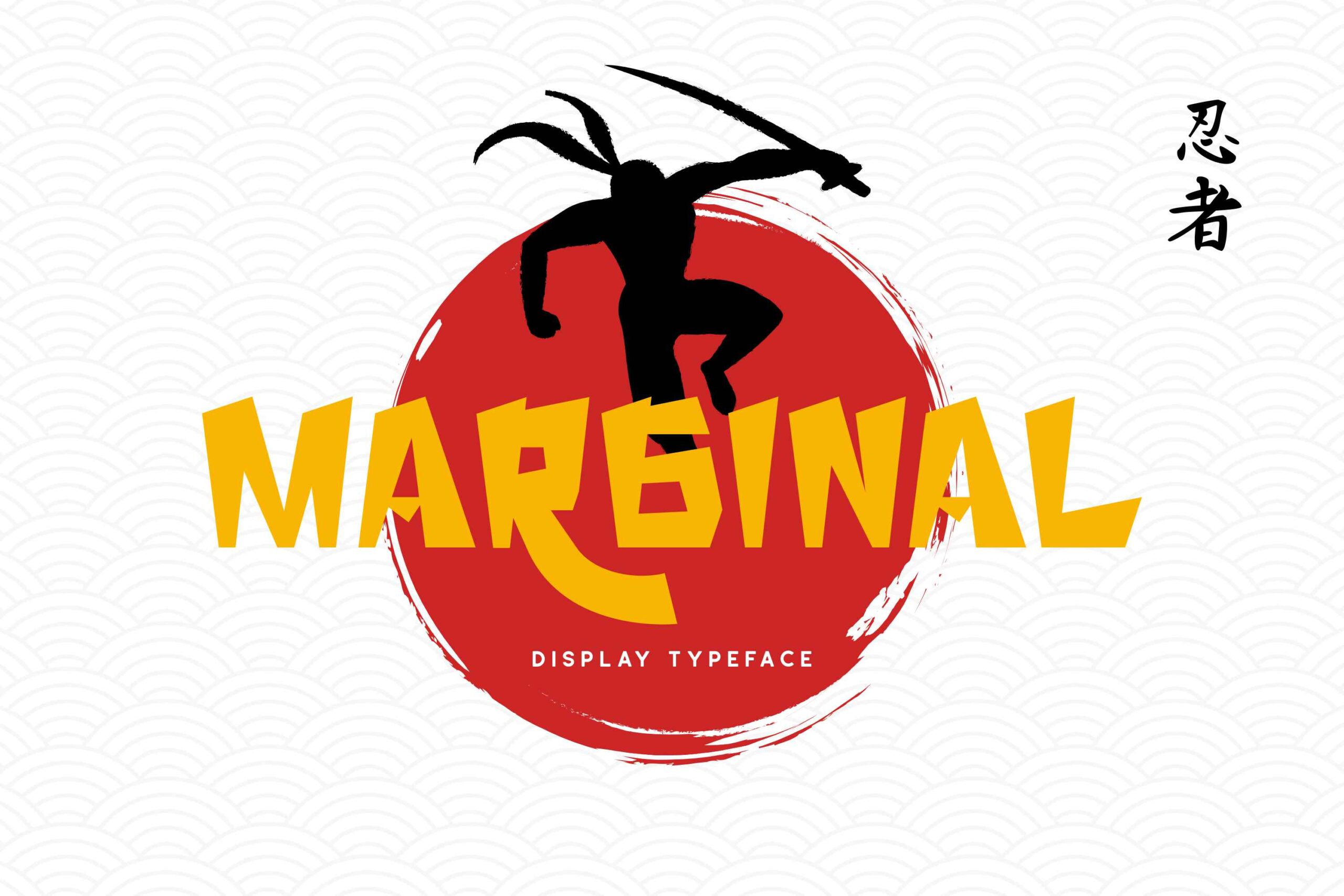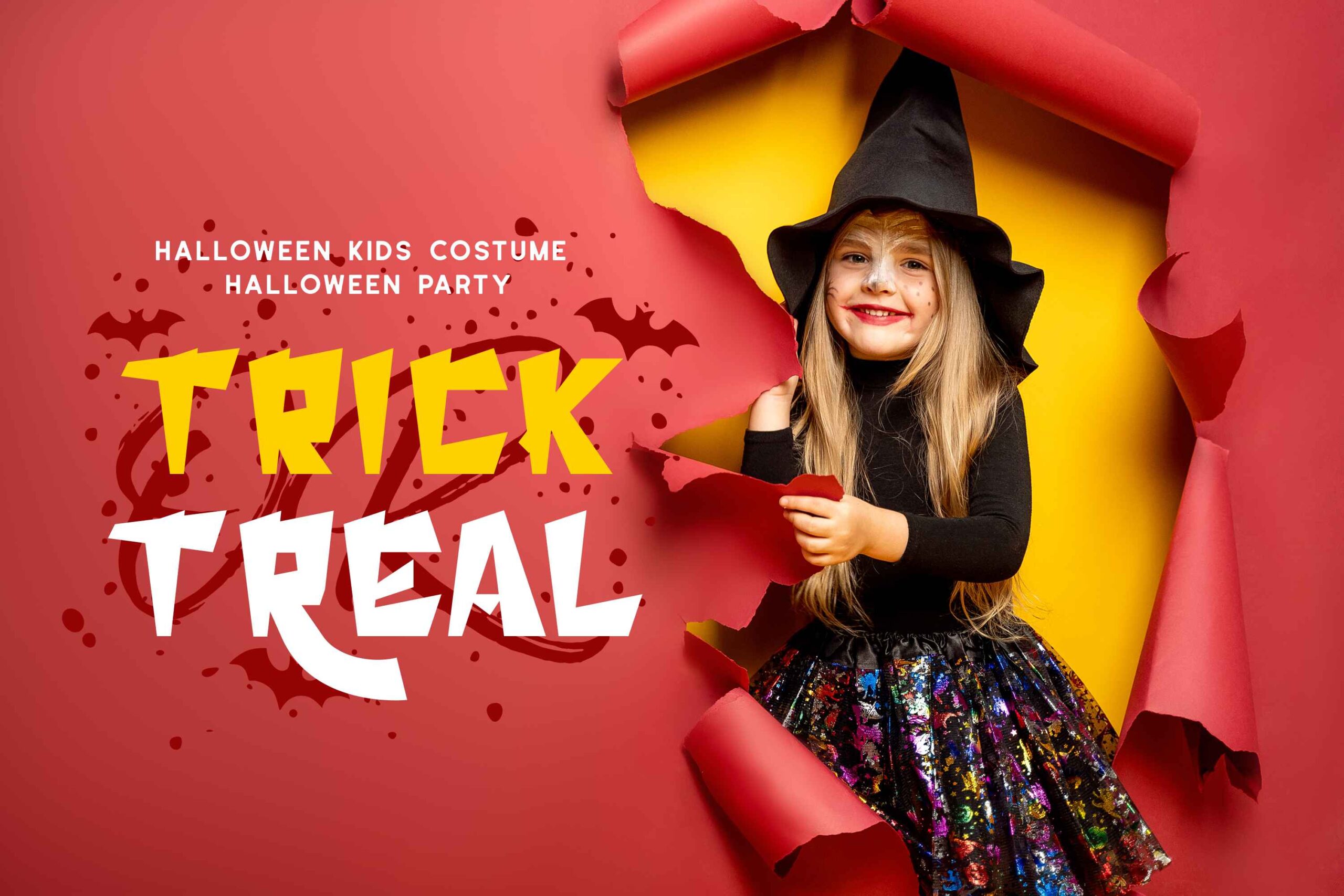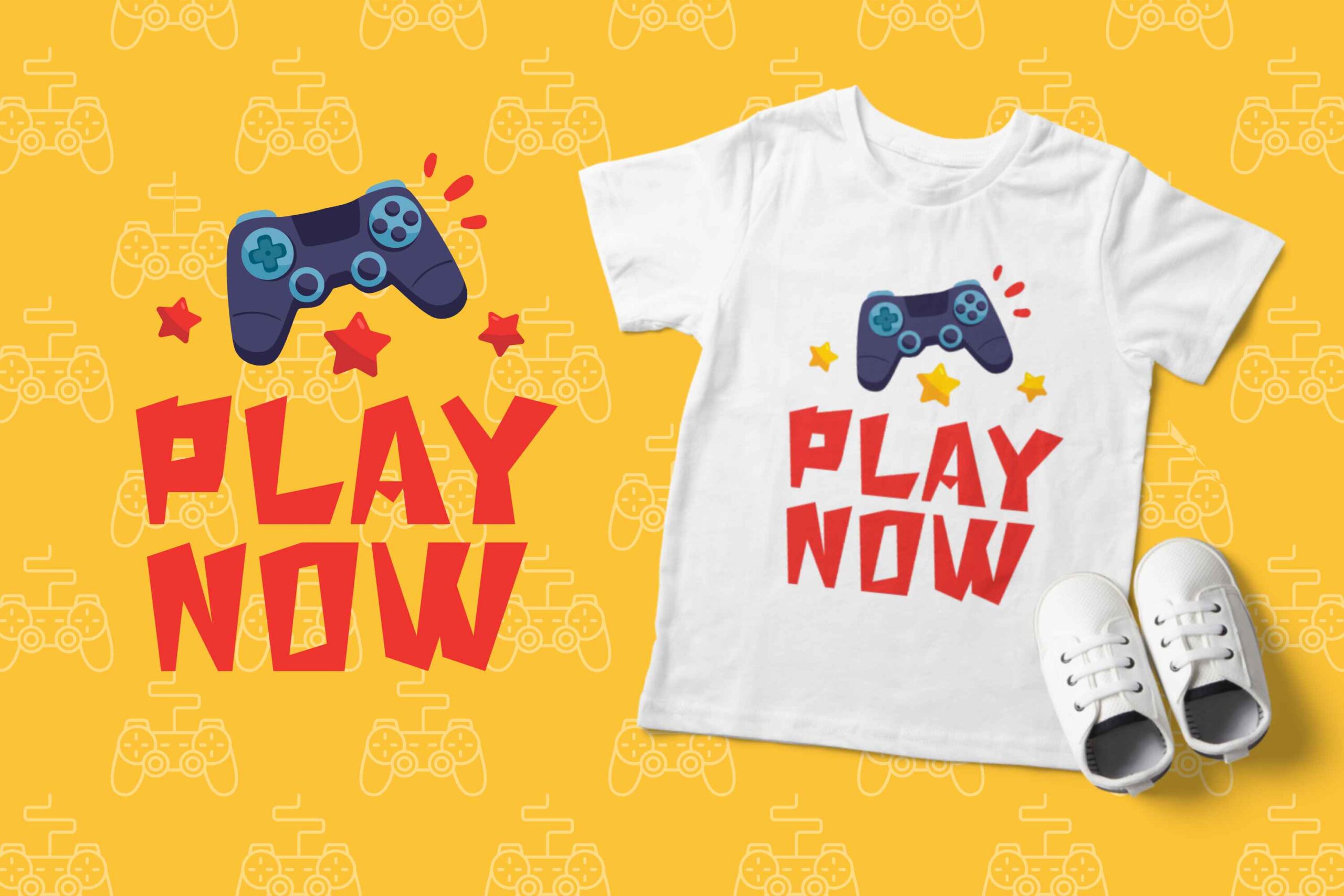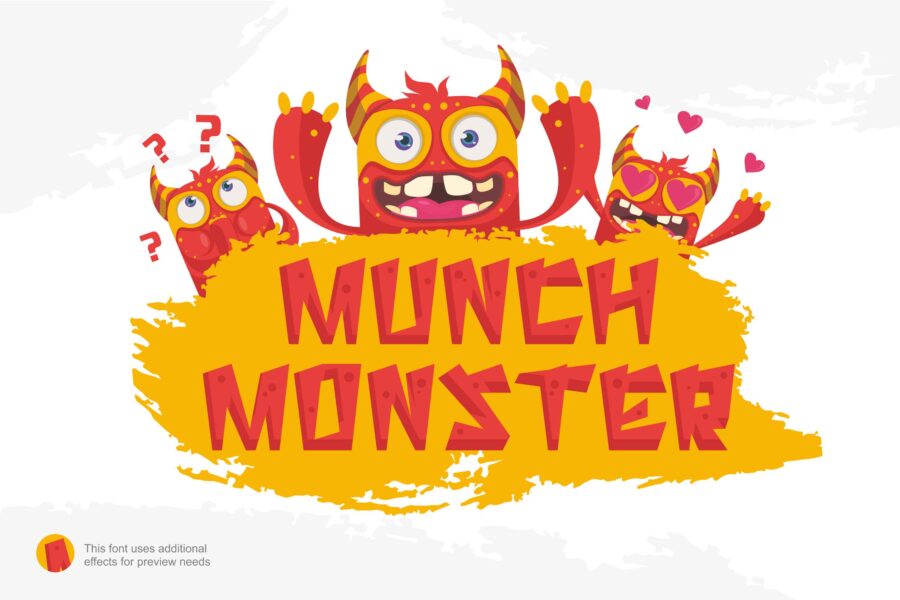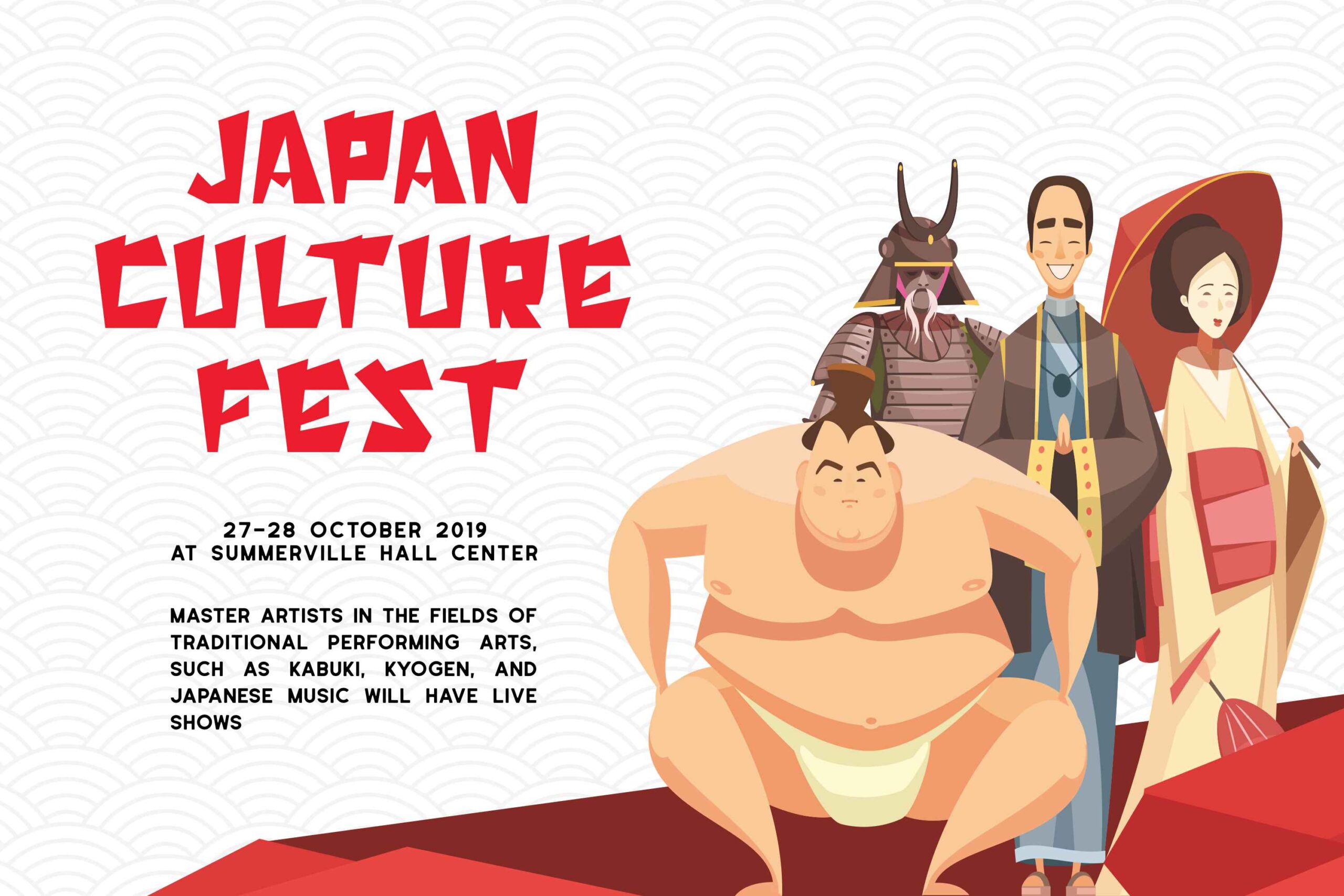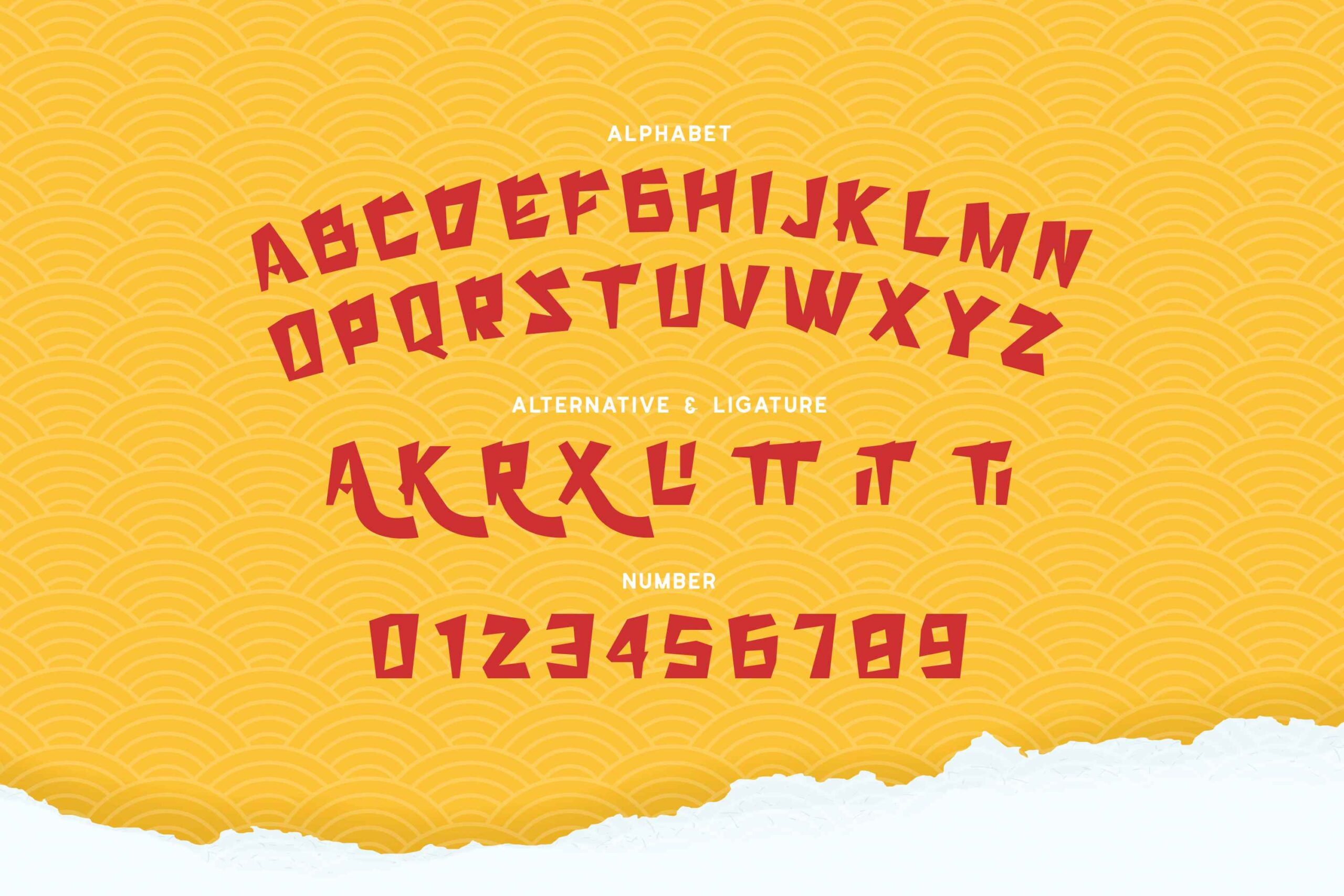
Marginal is a bold and energetic display typeface inspired by Japanese culture, martial arts, and comic-style lettering. Its sharp angles, irregular strokes, and strong personality give it a powerful and adventurous look, perfect for projects that need a touch of action and excitement. With alternate characters and ligatures included, Marginal brings dynamic variation to your typography.
This font is ideal for posters, gaming titles, Halloween designs, kids’ illustrations, merchandise, and cultural festival branding. From ninja-themed projects to monster mascots or playful kids’ t-shirts, Marginal captures attention instantly and makes every design feel bold, fun, and unforgettable.
Marginal